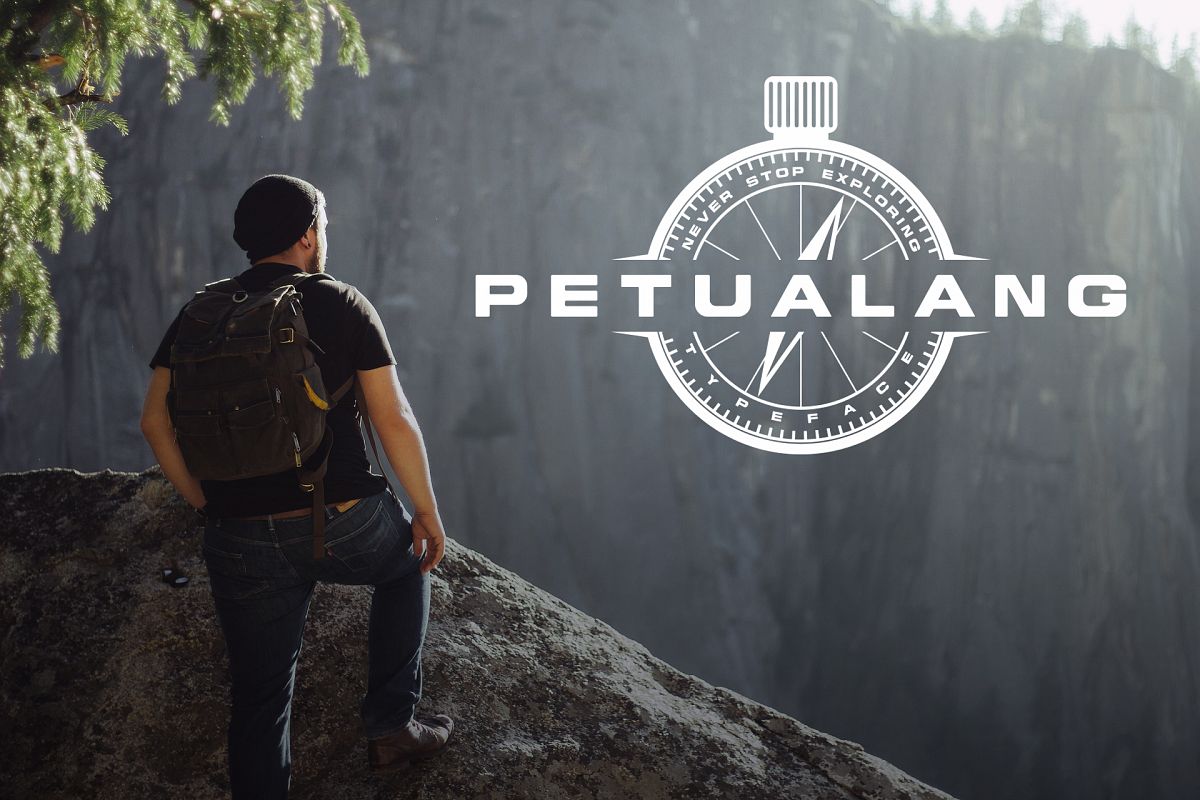
Petualang Typeface
**Petualang** is typeface that made with precision bold character.
Petualang from indonesian language  which mean adventure. This typeface is perfect for display, headline, logotype and more.